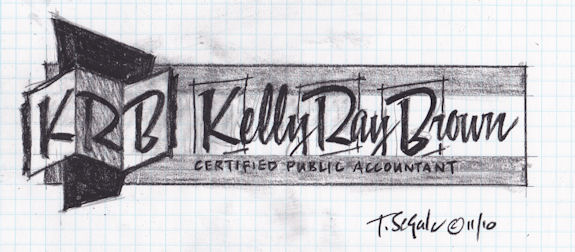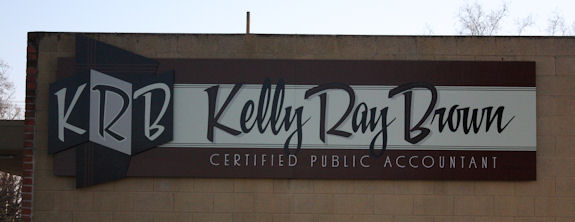
hand lettering
Live by the brush, I'll die by the brush....
Just finshed this 4' x 16' sign with a couple extra cut outs, designed new logo, also.
finshed this, also.
has hand lettering, as well
14" x 11" watercolor
Nice Jenco.
And stalwart, Mr. Jenco— “Left handed California Lettering Artist, always stalwart.”?—is not spelt s-t-a-l-l-w-o-r-t-h.
That is a very nice design. I am particularly drawn to the script (especially the caps). You've gone right up to the line but did not cross it.
A lil script goes along way, I my book.
Sharp lookin sign Tony, real retro.
Bob S..... I did cross the line with the caps, in the shadows on the north wall this time of year, it's hard to make out the two different tones of brown.
The dark brown of the caps does run together with the dark brown of the three horizontal 'ledger' lines....
Here is the original sketch the client approved, always allowing me to make improved adjustments as I layout or paint.
I scanned the sketch and digitized for plotter patterns and selling of logo/letterhead.
You might notice, the logo on the left was reduced to improve the visual impact of the letters for the sign.
Nice job Tony. I wish I had saved all my sketches, they allways got better so I threw them all away periodically.
I allways like your paintings too, especially the harmonica one.
Clean Sharp and easy to read thats what signwriting is about ron